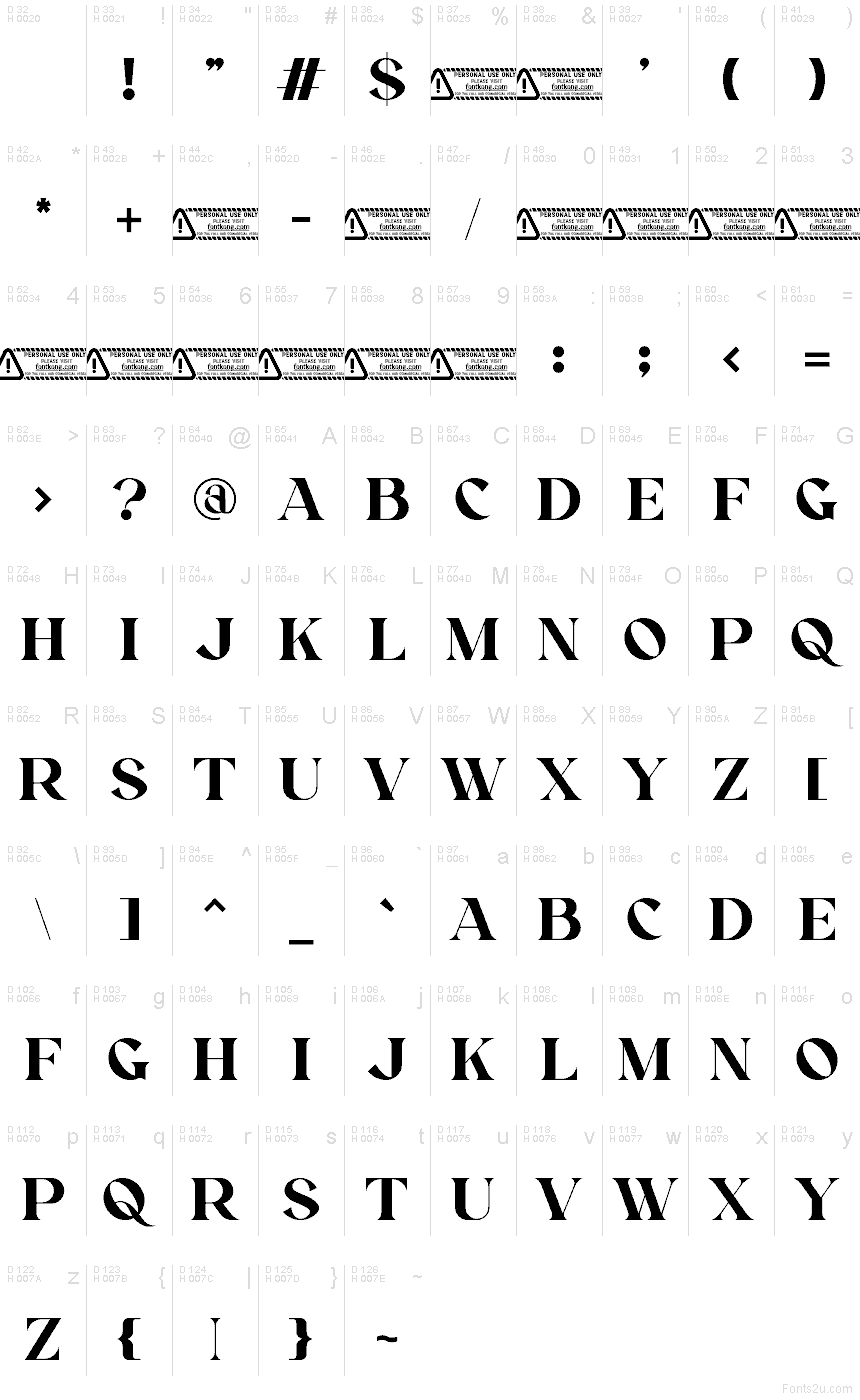
Florence font by Kong Font is a bold serif that exudes elegance and modernity. It integrates geometric influences with high contrast, creating a striking visual harmony. Its sleek yet commanding presence makes it a perfect choice for projects that demand attention and sophistication.